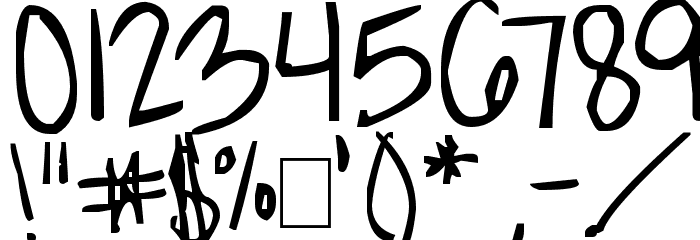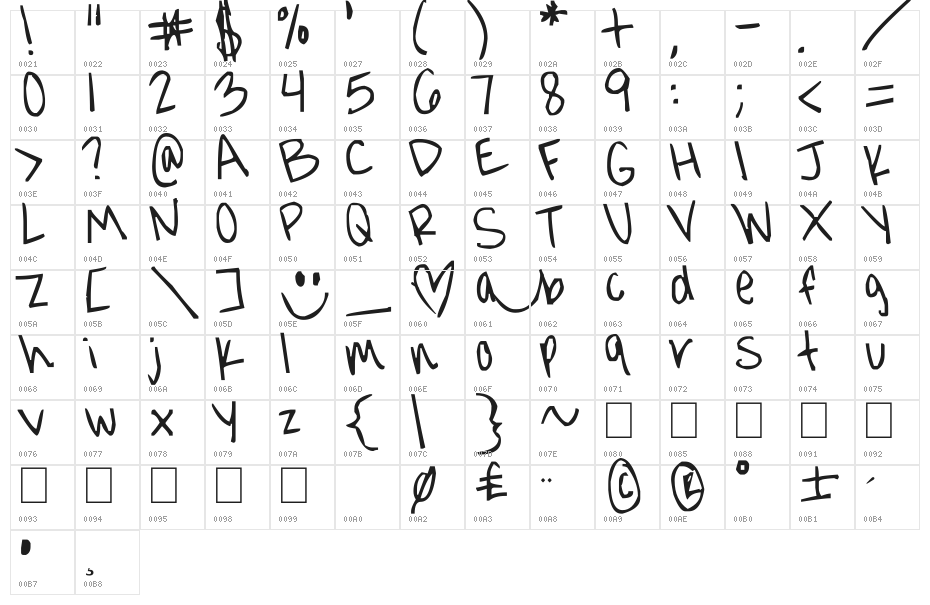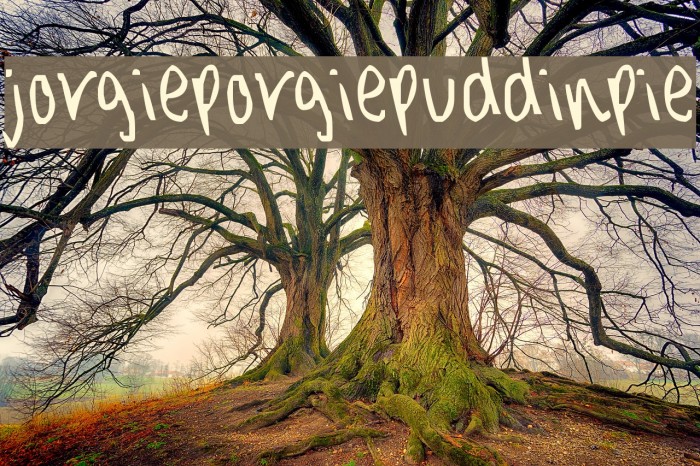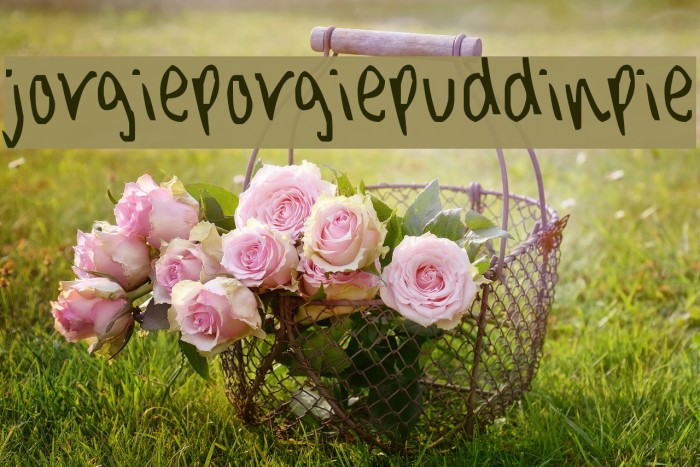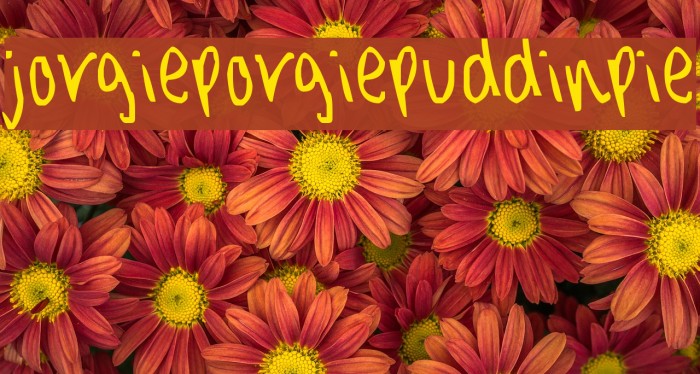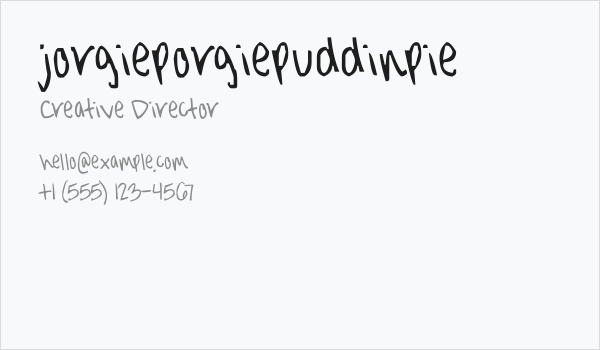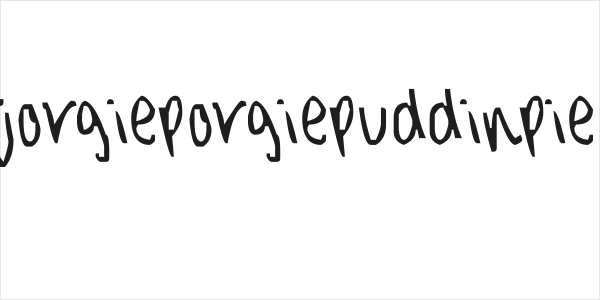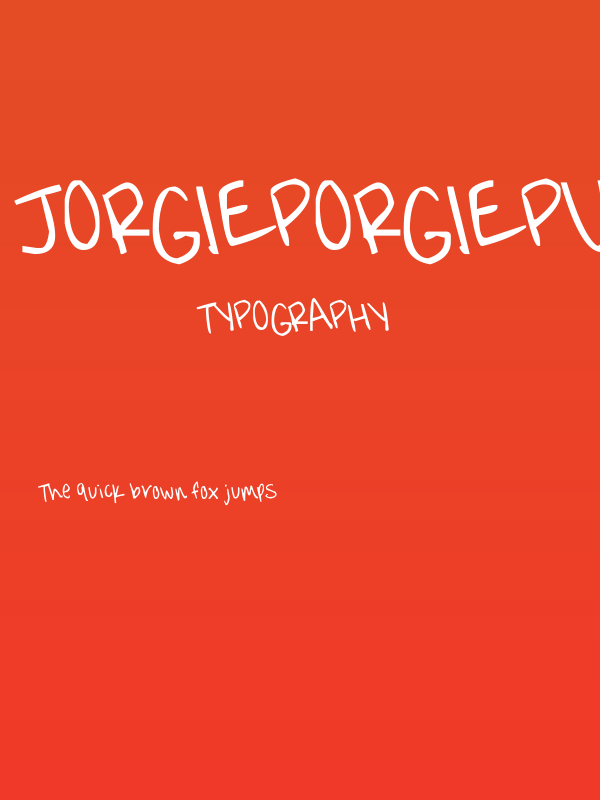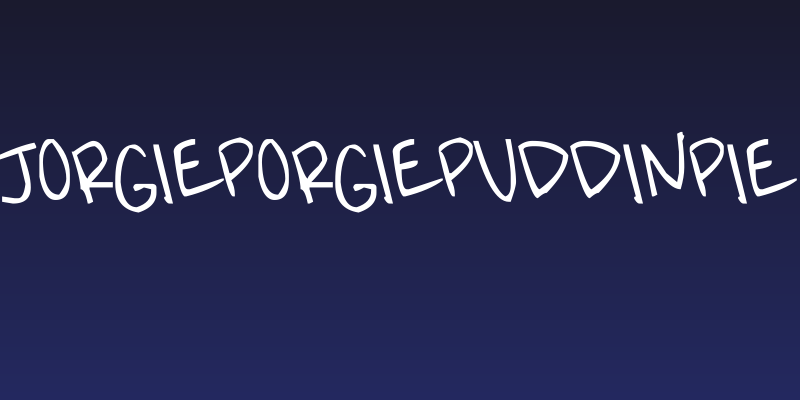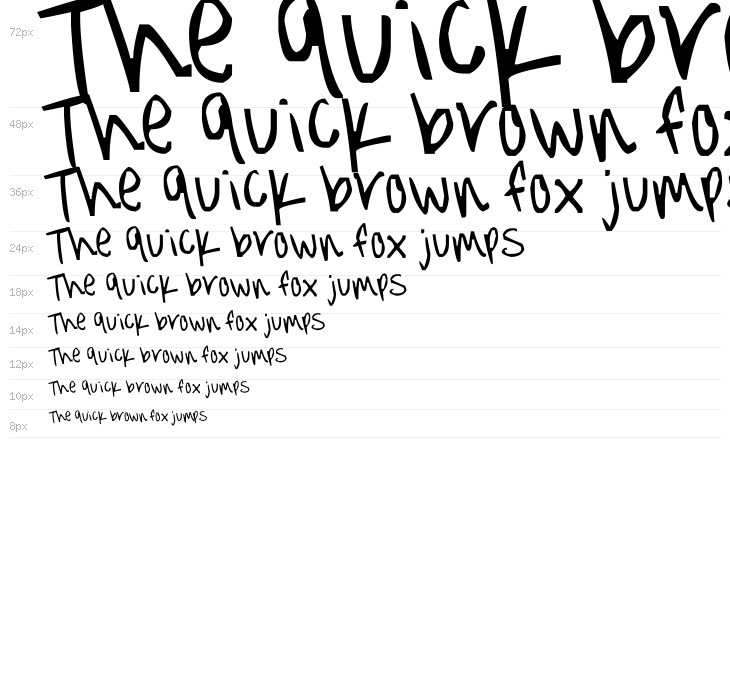
jorgieporgiepuddinpie Font
jorgieporgiepuddinpie Description
This font features a playful and casual handwritten style, characterized by its irregular and dynamic strokes. The letters have a natural flow, with varying heights and angles that give it a lively and informal appearance. The uppercase letters are bold and slightly slanted, while the lowercase letters maintain a consistent, yet quirky form. Numbers and special characters follow the same energetic style, adding to the font's overall charm. This font is perfect for projects that require a personal touch or a fun, approachable vibe.